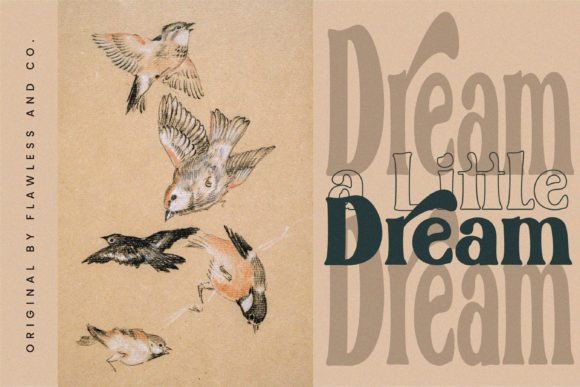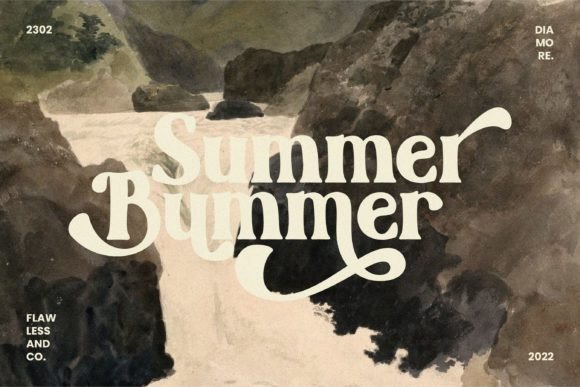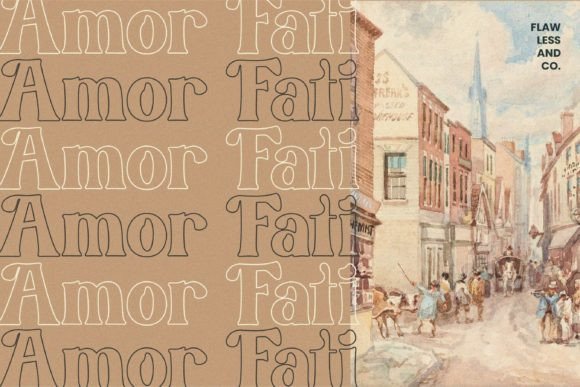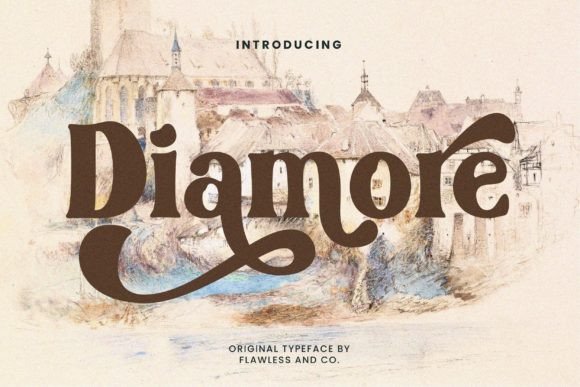
Introduction to Diamore Font
Diamore is a gorgeous and elegant display font.
Stylish, elegant, and chic, this font is guaranteed to add a special romantic touch to any design you wish to create .
Diamore Font offers exceptional quality and versatility, making it a valuable addition to your design toolkit. Whether you’re creating for personal projects or commercial use, Diamore Font delivers professional results.